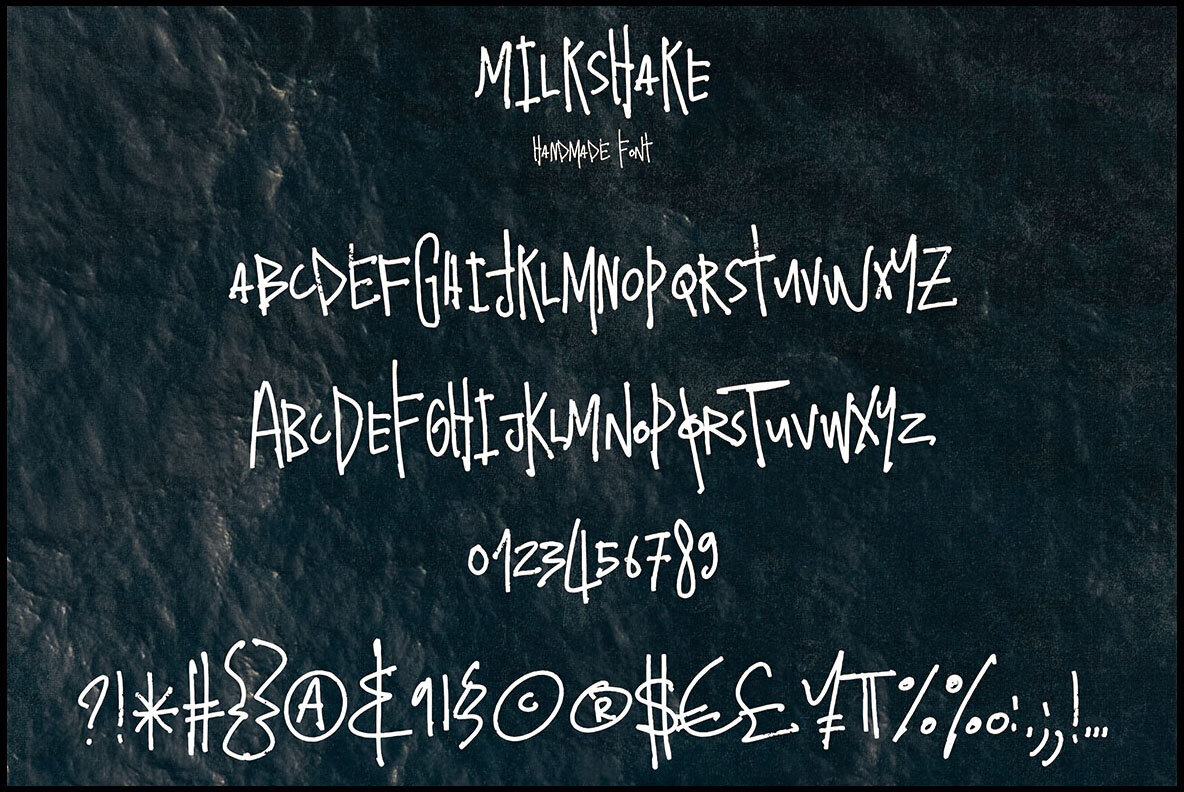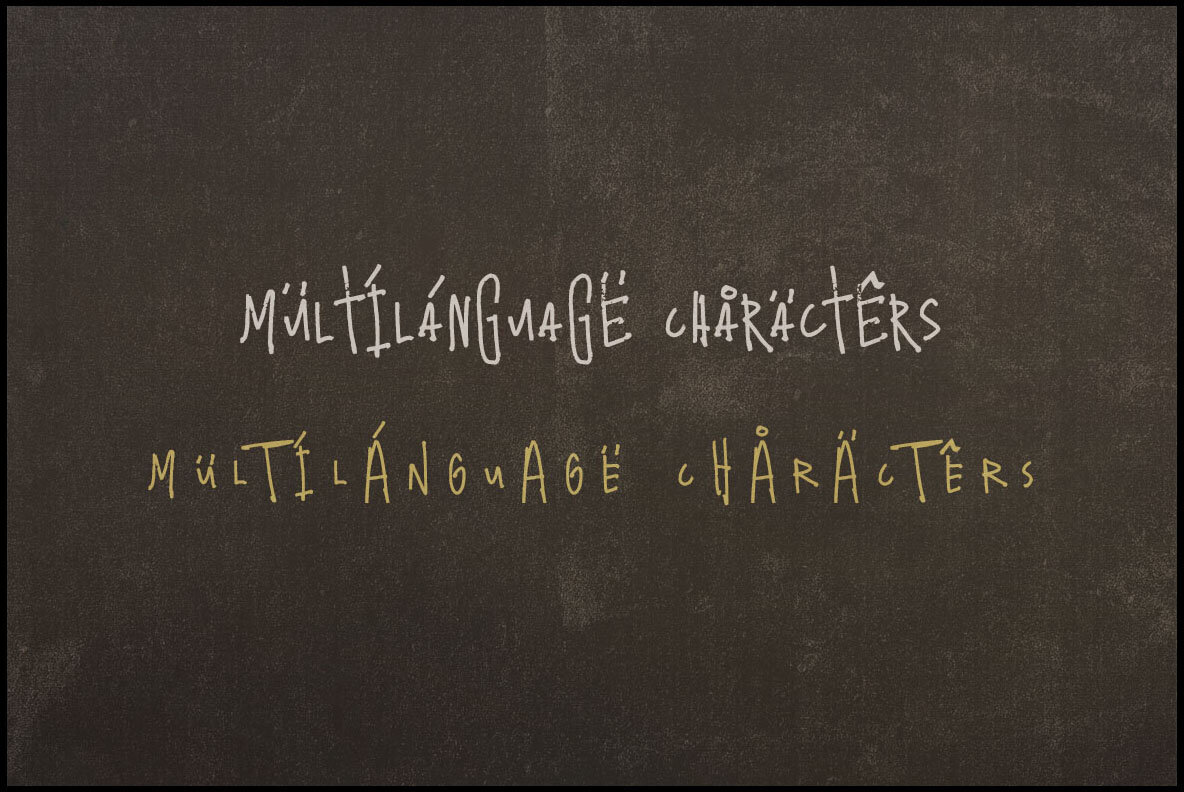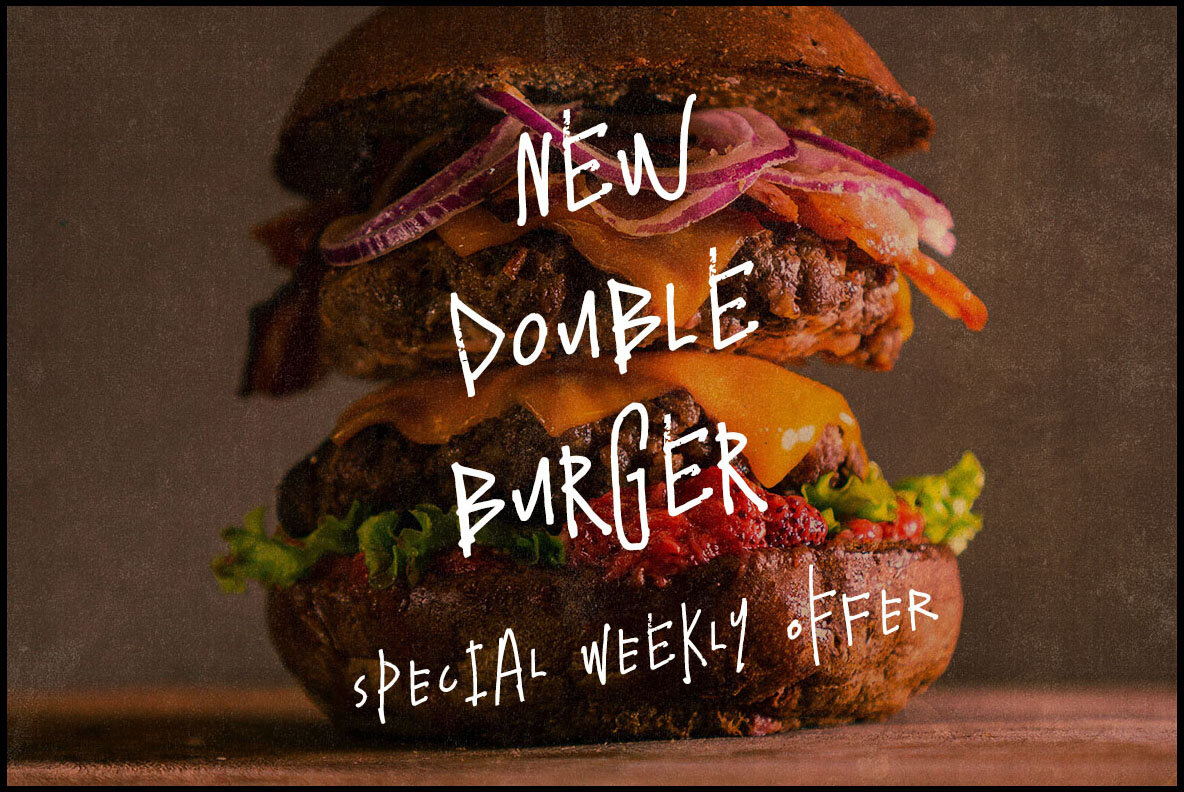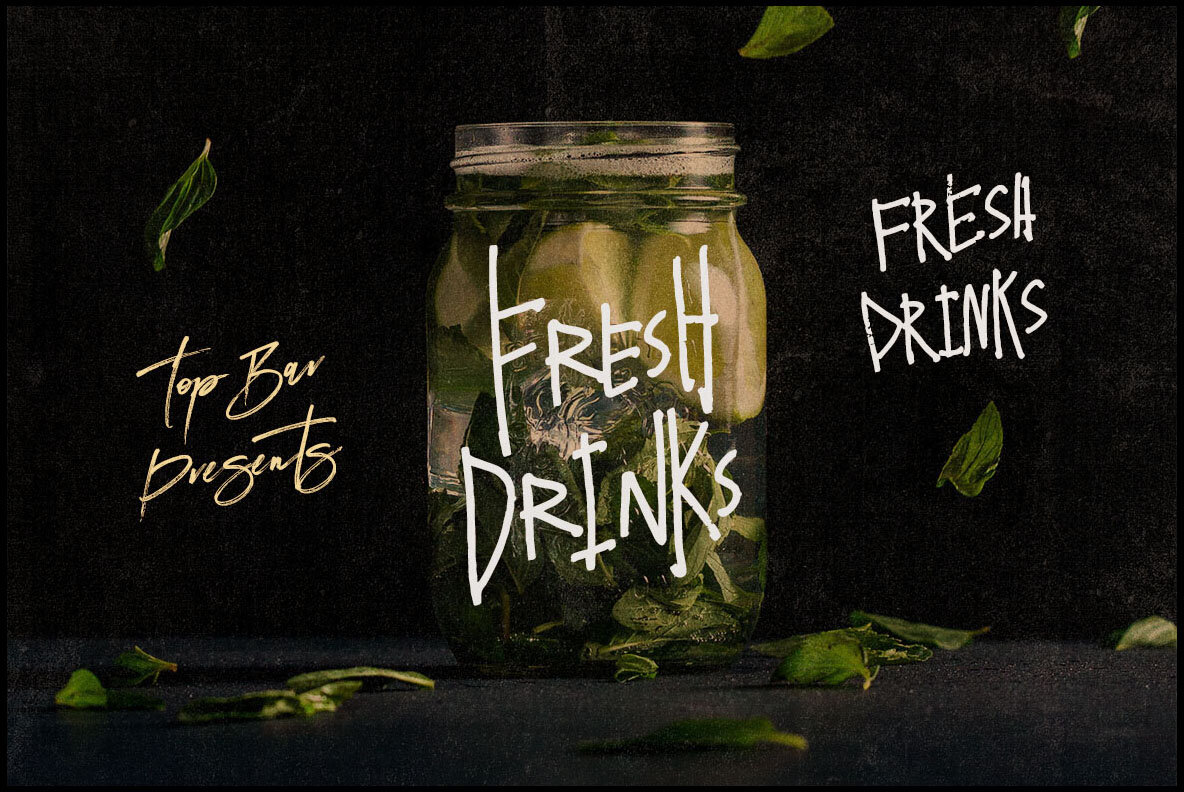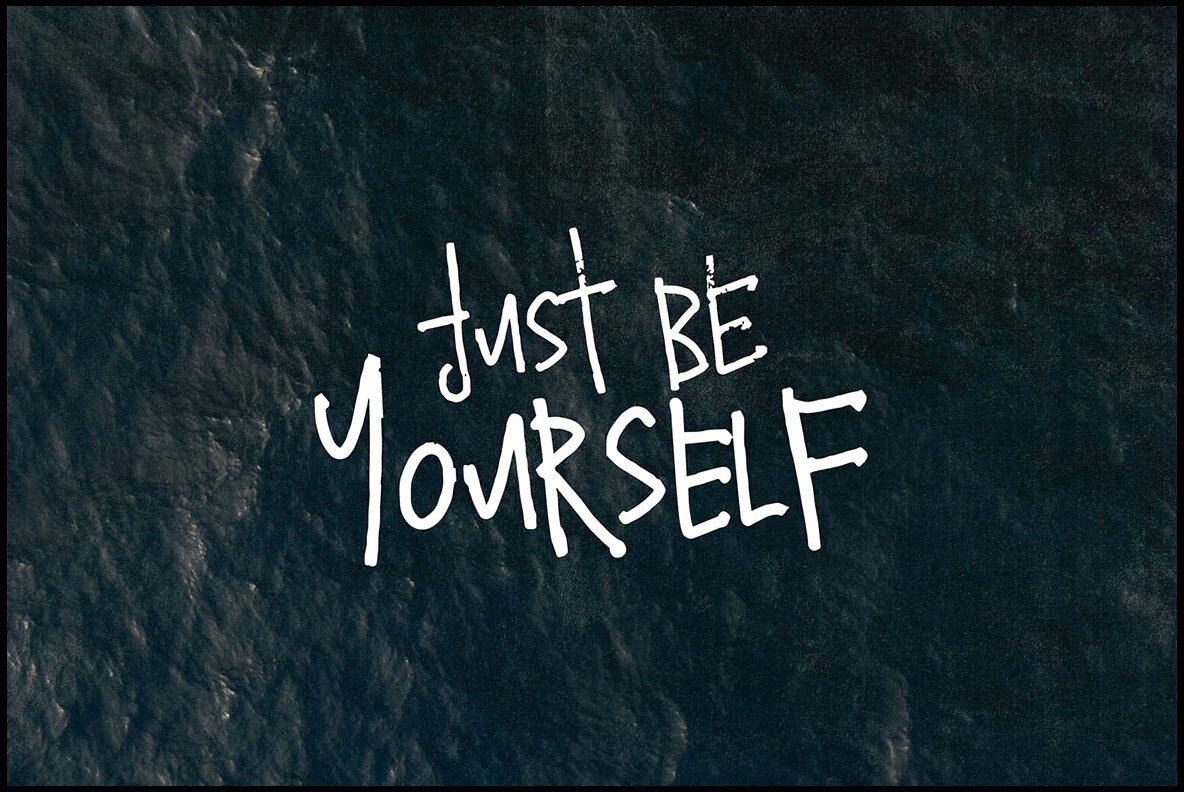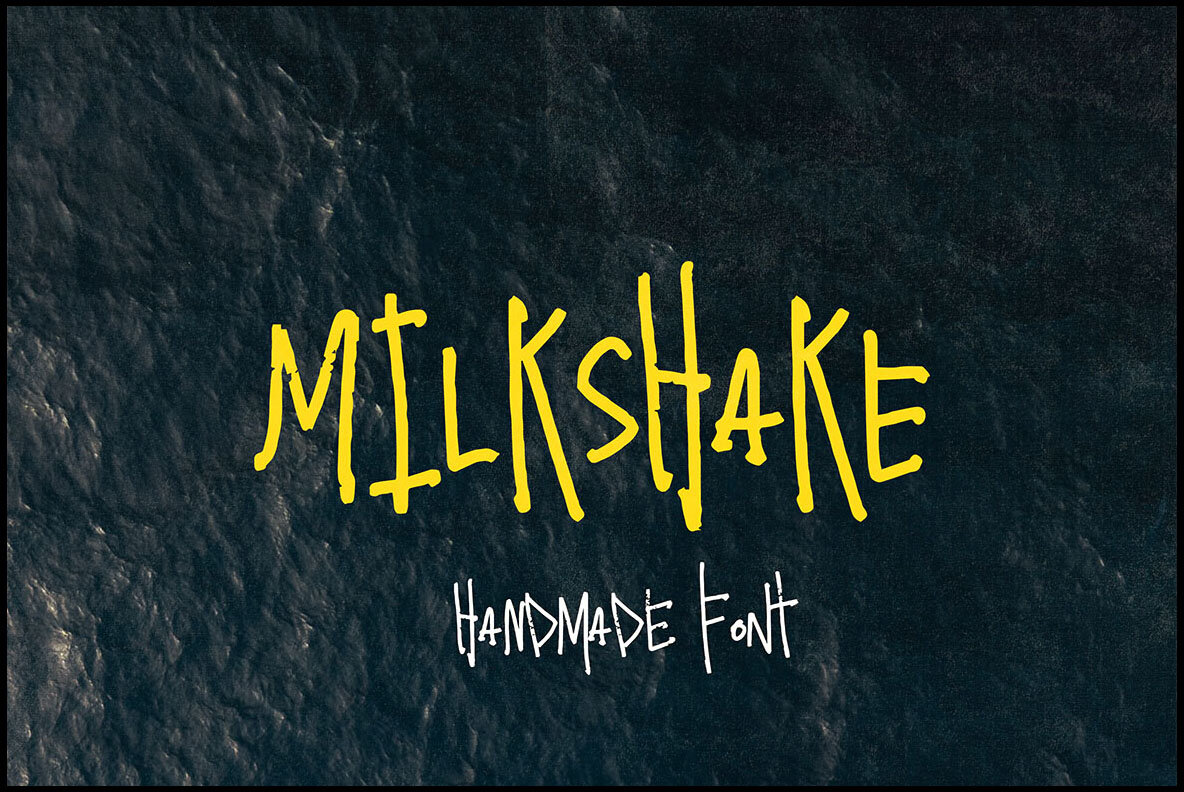
Milkshake Font
Milkshake Regular
Milkshake by Peter Olexa brings a bold, marker-like, handwritten aesthetic to your projects. Perfectly suited for grunge or artistic endeavors, this sans display font offers a distinctive and creative flair. If you need any help with the Milkshake font, feel free to contact Peter Olexa through his profile page for assistance.Milkshake: Marker-Inspired Grunge Sans Font